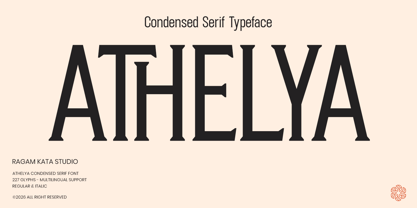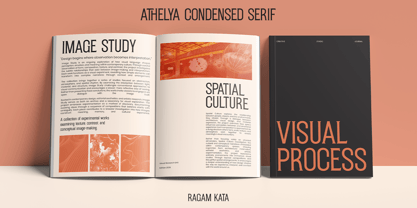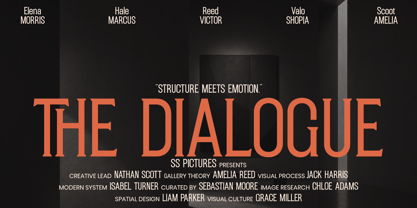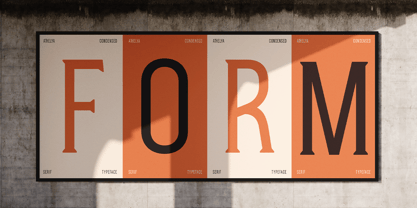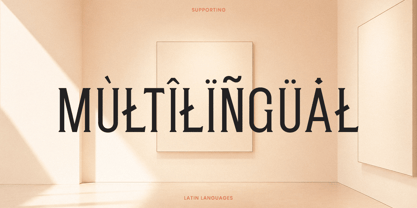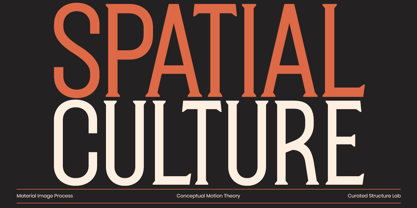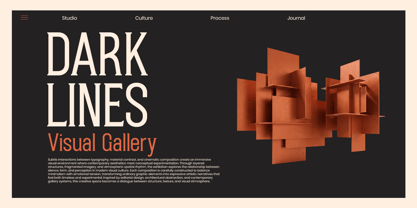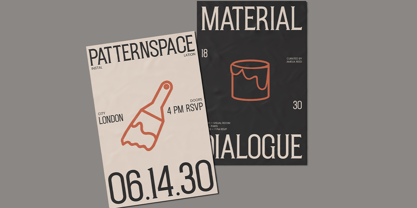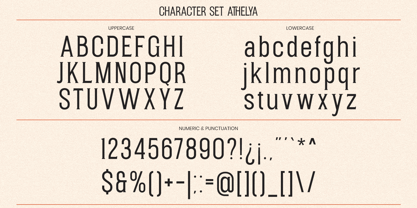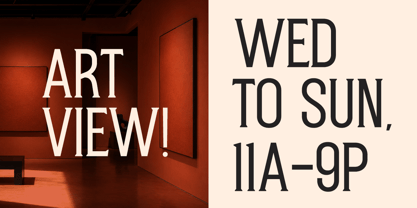
Athelya
La familia tipográfica Athelya fue diseñada por Yogiswhara Dio Prakoso Riadi y publicada por RagamKata. Athelya contiene 2 estilos y opciones de paquete familiar. Más información sobre esta familia
Athelya is a bold condensed serif typeface designed to bring strength, elegance, and timeless sophistication into modern typography. Featuring tall proportions, sharp serif details, and a refined condensed structure, Athelya creates a commanding visual presence while maintaining excellent readability. Its distinctive character makes it ideal for designers seeking a typeface that balances classic heritage with contemporary aesthetics.
Inspired by editorial publishing, luxury branding, and vintage-inspired typography, Athelya delivers a versatile design solution for a wide range of creative projects. The condensed letterforms maximize visual impact in limited spaces, making it perfect for headlines, logos, packaging, posters, and branding materials. Whether used for fashion campaigns, premium products, or professional corporate identities, Athelya adds confidence and sophistication to every composition.
Athelya is perfect for editorial Design, Fashion Branding, Luxury Packaging, Restaurant Branding, Magazine Headlines, Corporate Identity, Logo Design, Product Labels, Posters, Advertising, Publishing, and Premium Branding.